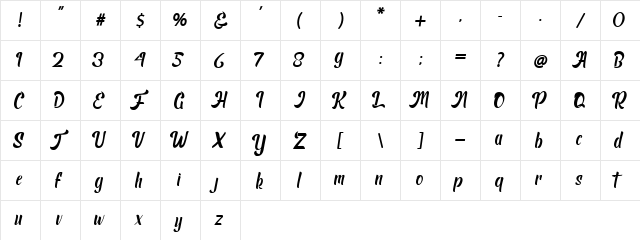
Rush Hour Demo Regular
| Foundry | Naharstd |
| Designer | Nanda Hardiansyah | Naharstd |
Design Context for Rush Hour Demo Typeface
Rush Hour Demo is a composed and adaptable typeface that performs quietly and consistently across a wide range of design contexts.